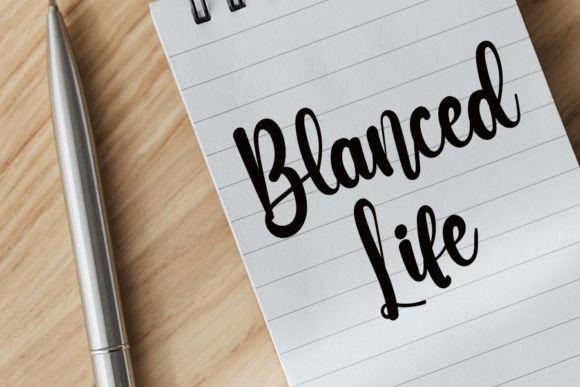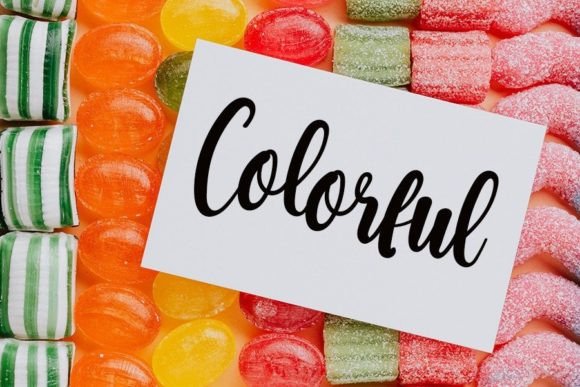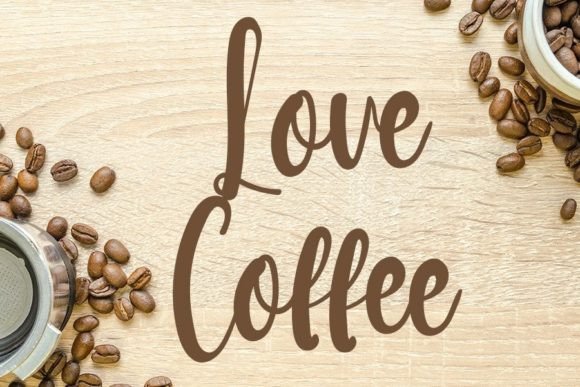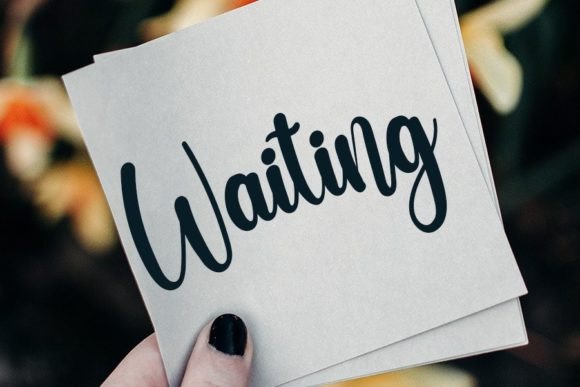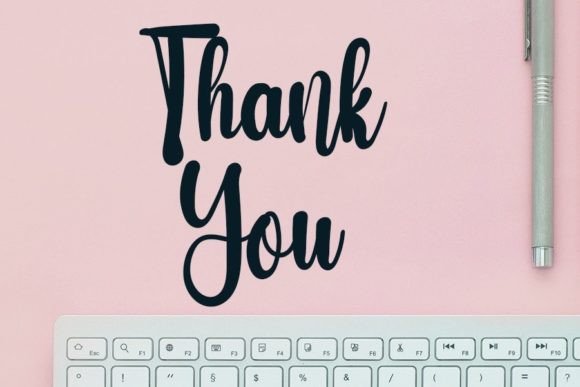
Introduction to Animale Font
Animale is a cool handwritten font with a modern vibe and spotless form, inspired by classic calligraphy.
Not too thin and not too thick, balanced and varied, this font was designed to enhance the beauty of your projects .
Key Features of Animale Font